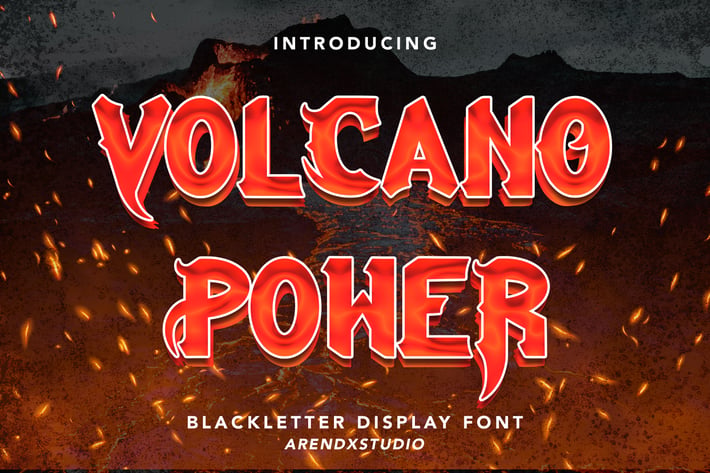
Volcano Power - Blackletter Display Font
Volcano Power - Blackletter Display Font is a display font that is inspired by gothic and horror style because its shape is very unique and is perfect for any project that you will use with this theme.
Volcano Power with opentype features such stylistic alternates, stylistic sets & ligatures good for logotype, poster, badge, book cover, tshirt design, packaging and any more.